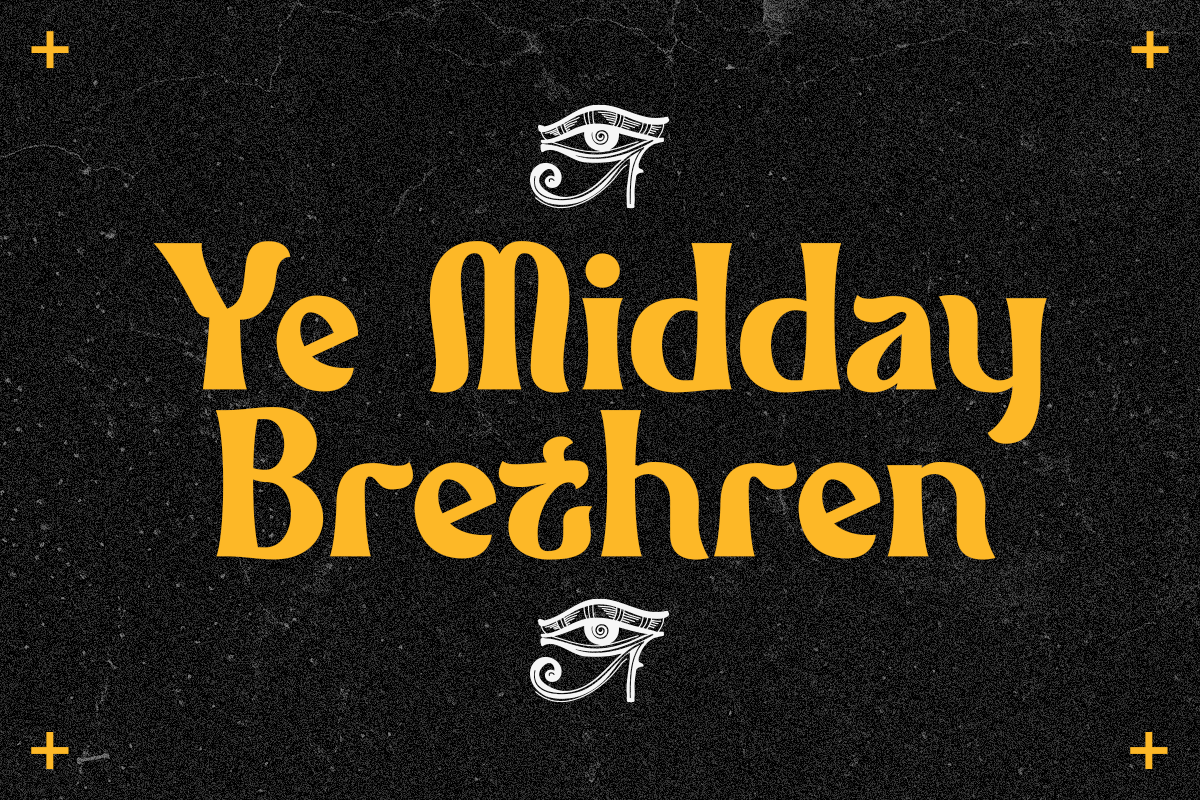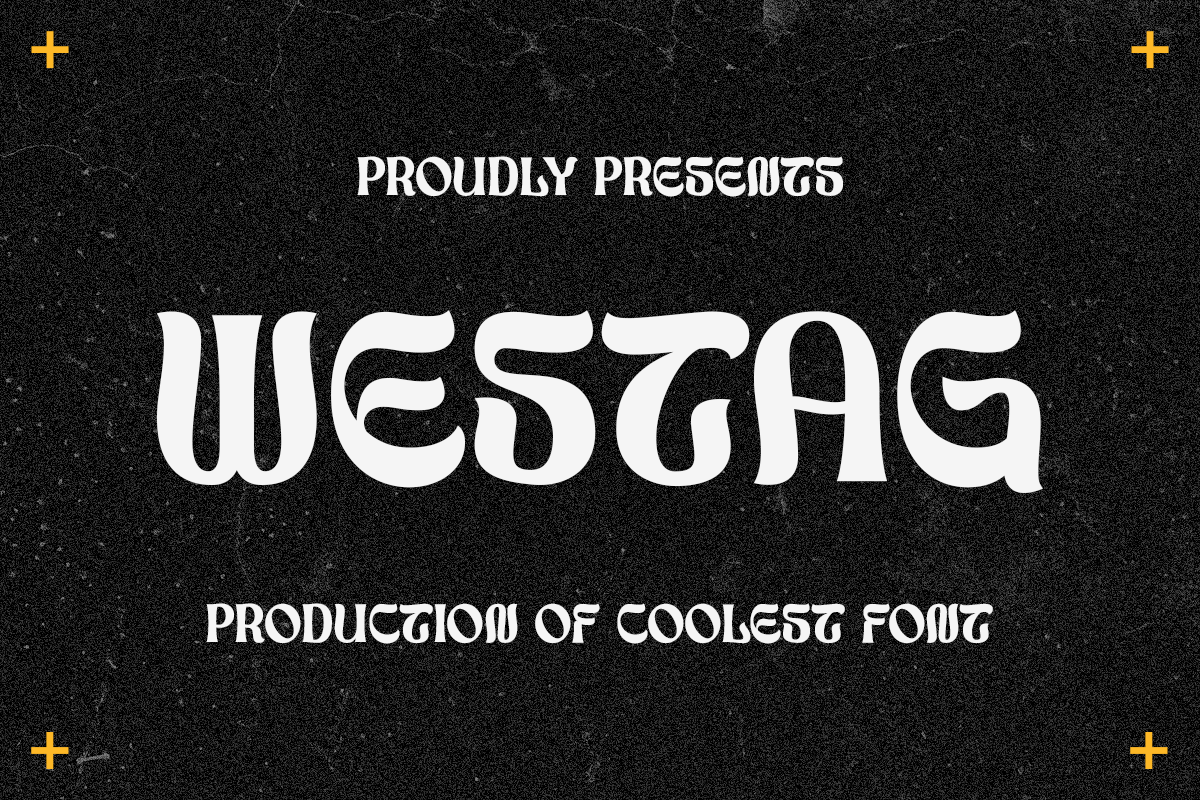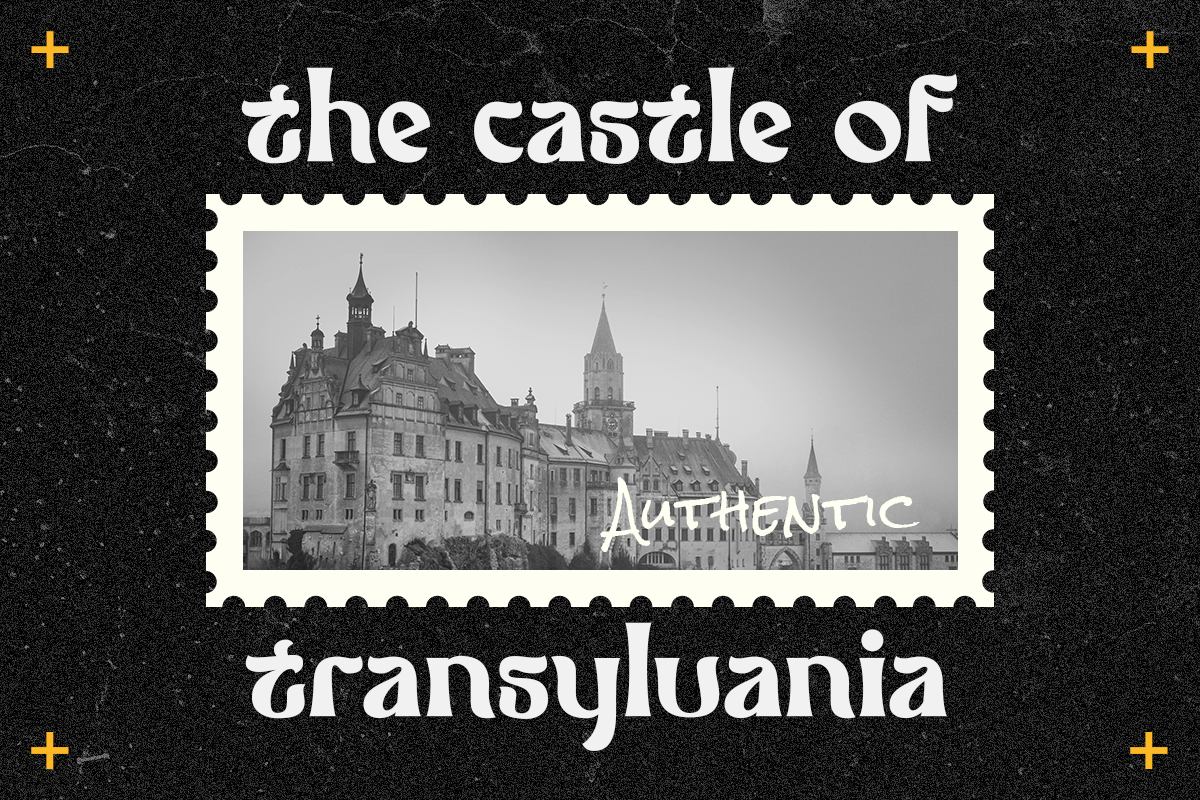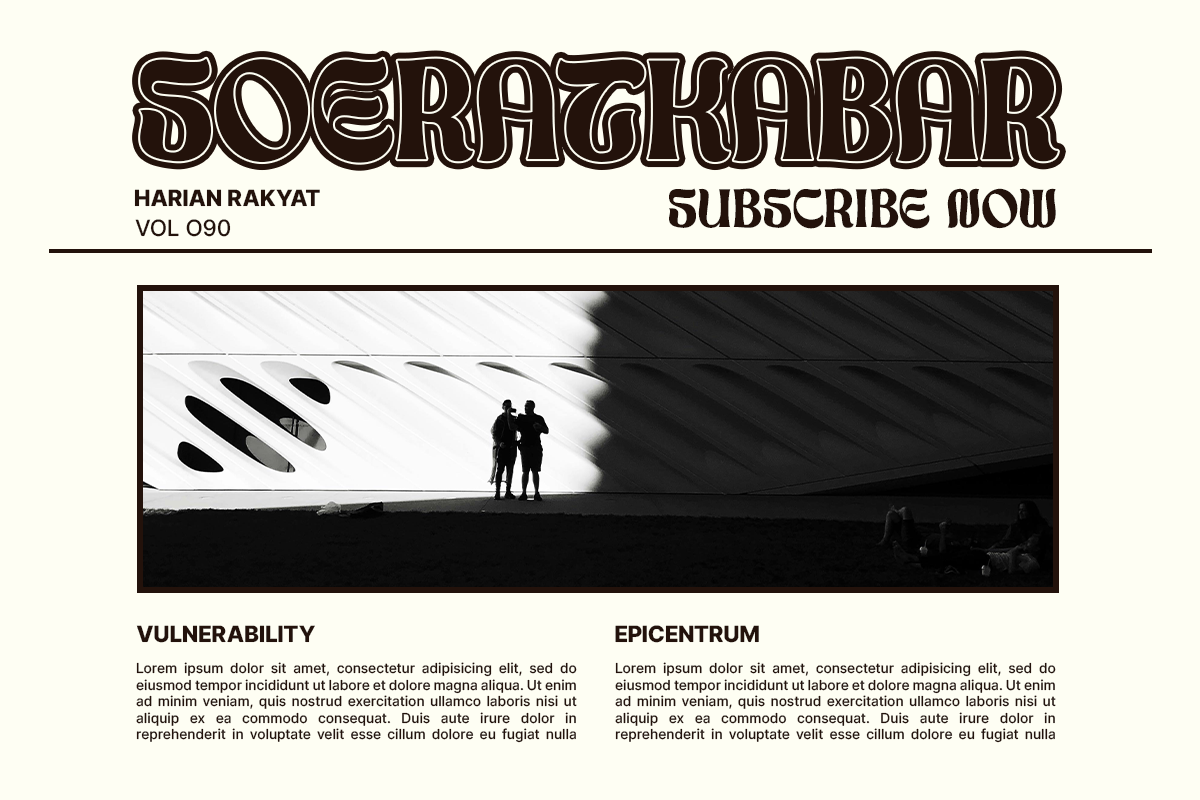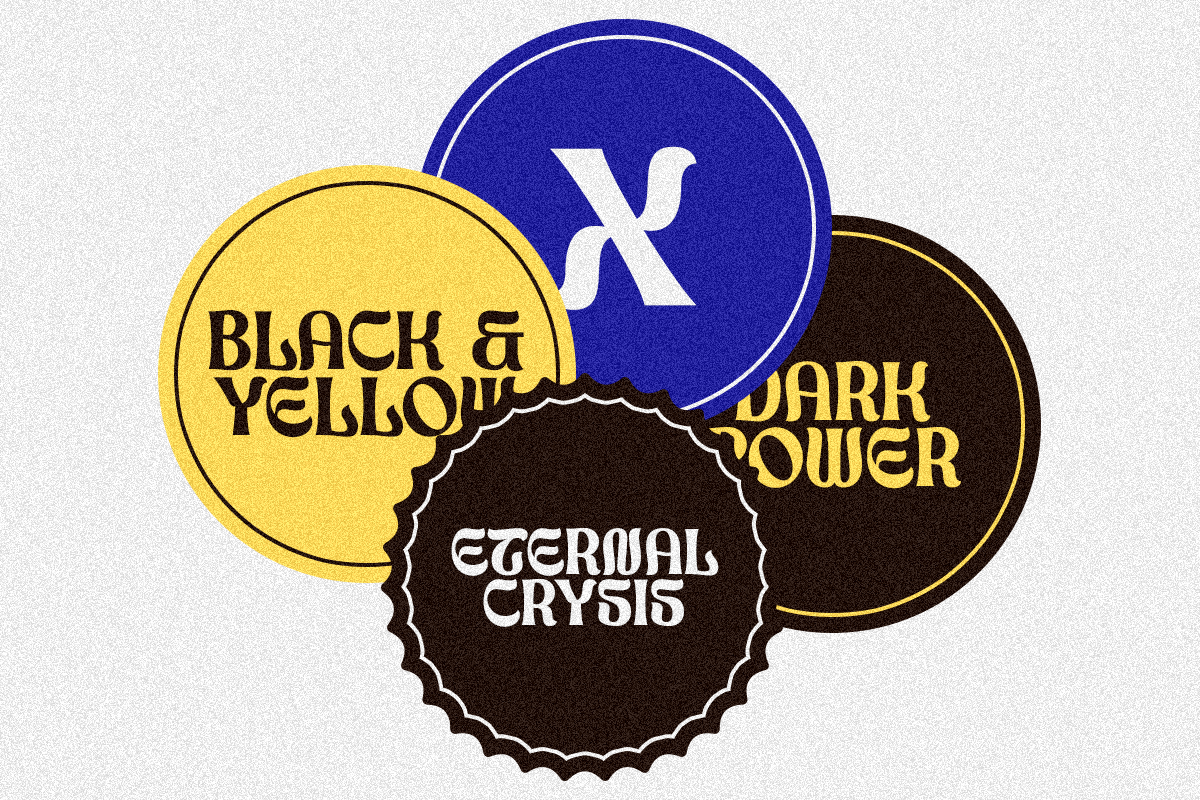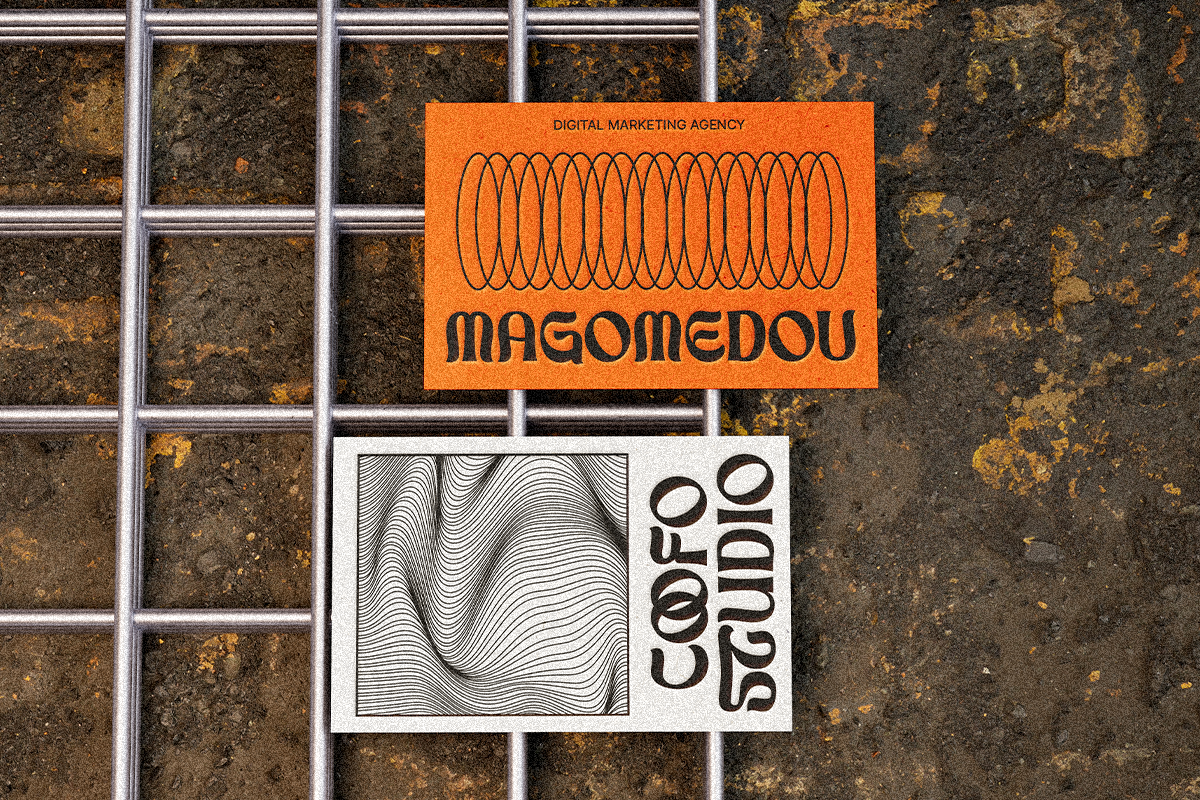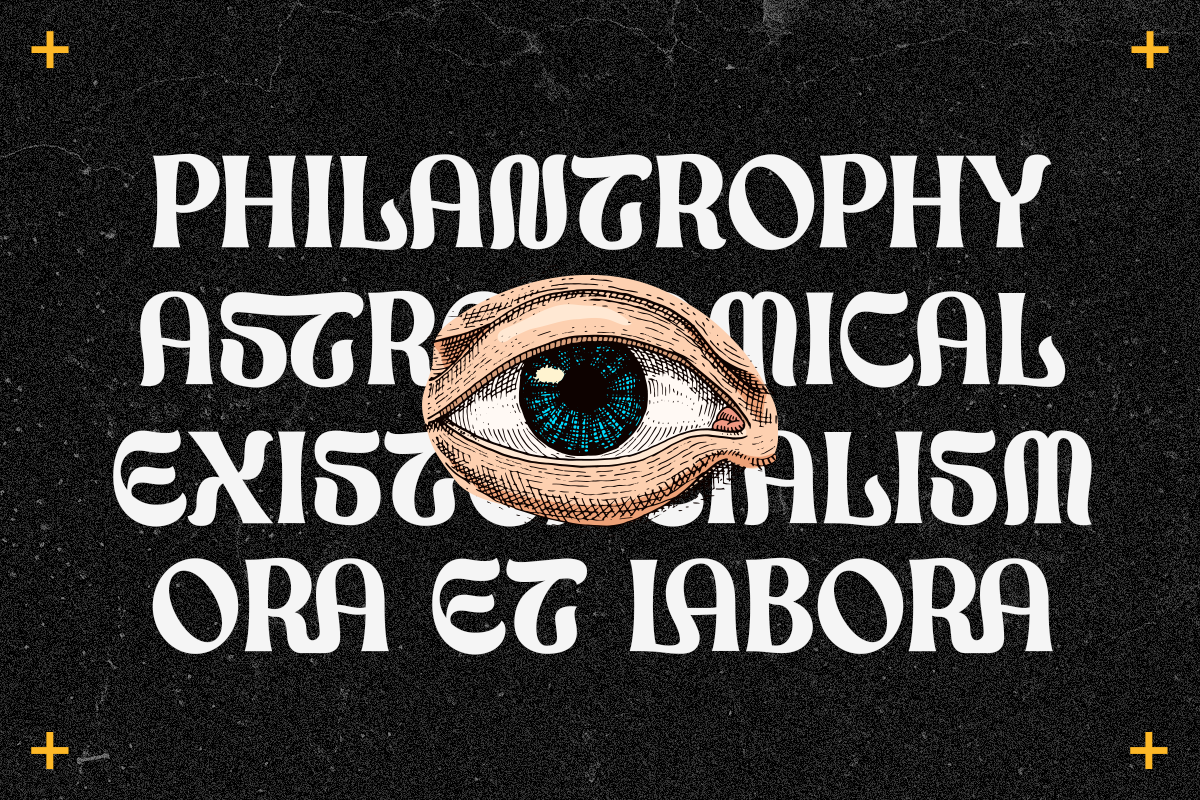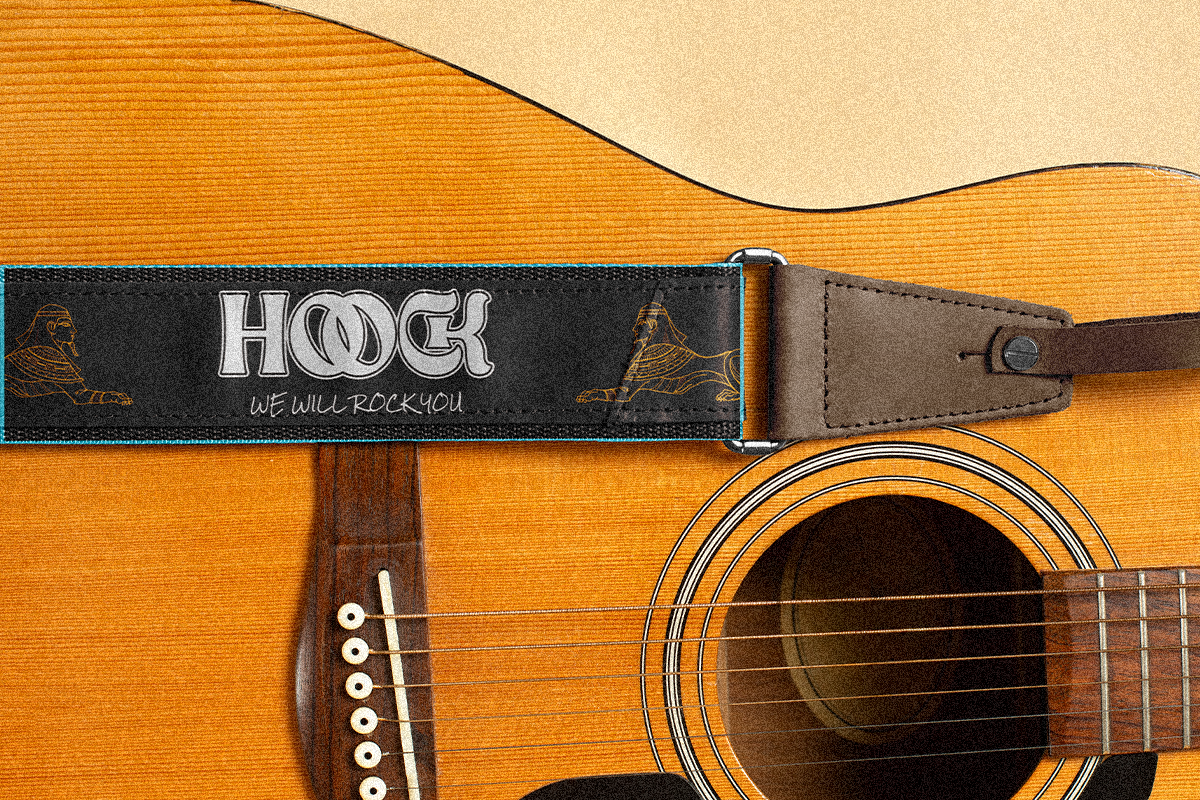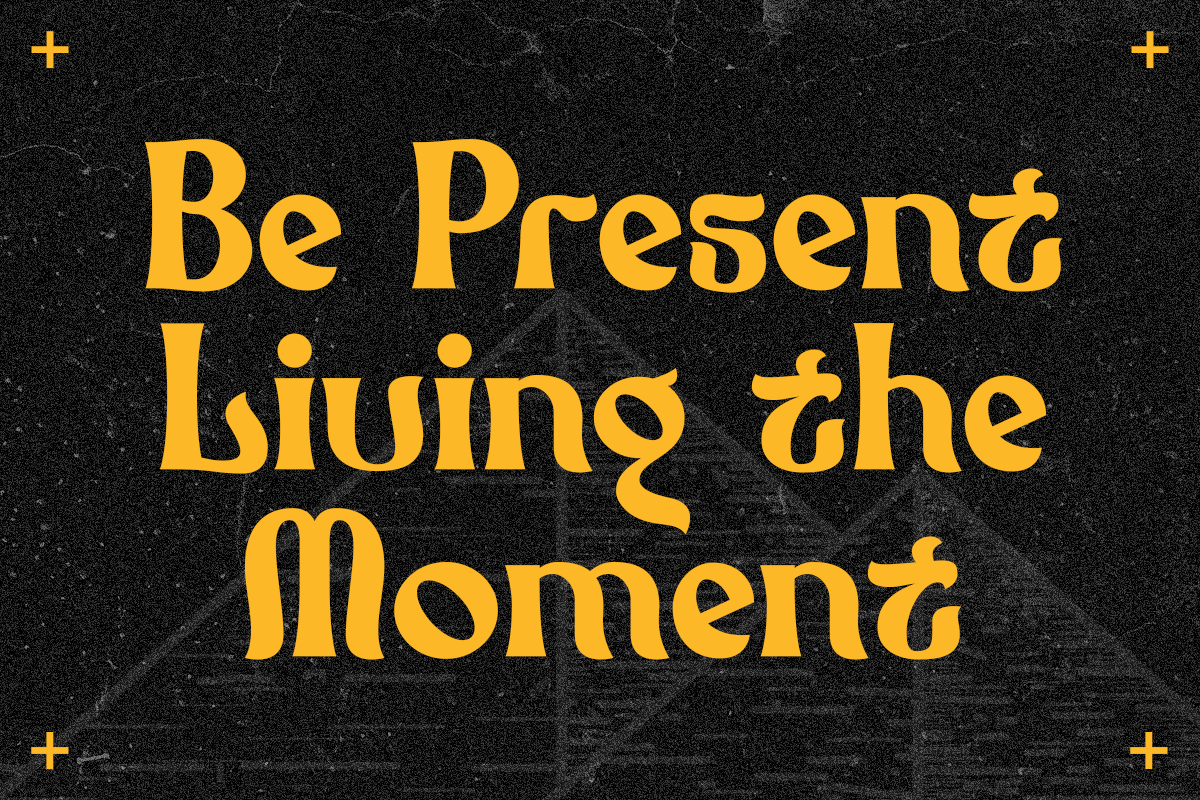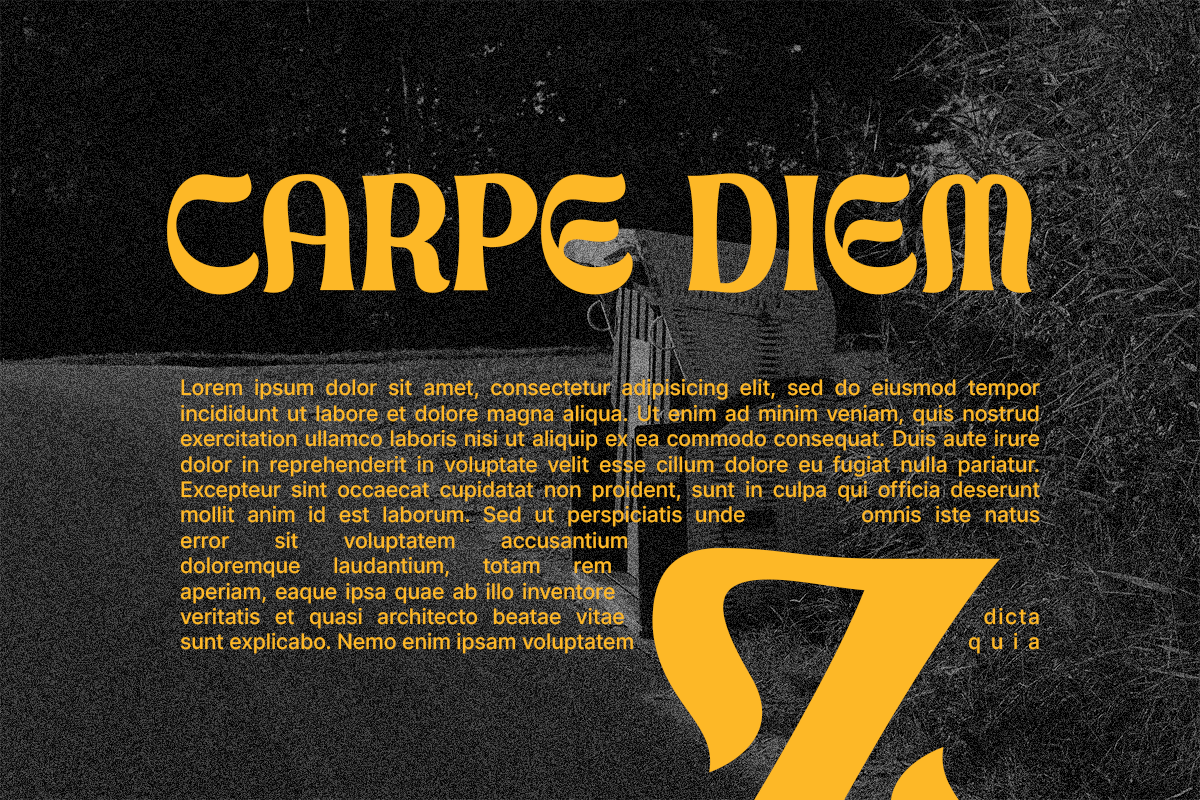
Westag – Elegant Display Font
Westag Font
Westag is a stylish and versatile display font designed to bring sophistication and character to your projects. With its refined curves and sharp details, this font is perfect for branding, editorial design, packaging, logos, social media, and more. Whether you're working on high-end fashion branding or modern digital visuals, Westag adds a timeless and professional touch.
✔ Elegant and modern design
✔ Perfect for branding, packaging, and editorial use
✔ High readability with a strong visual impact